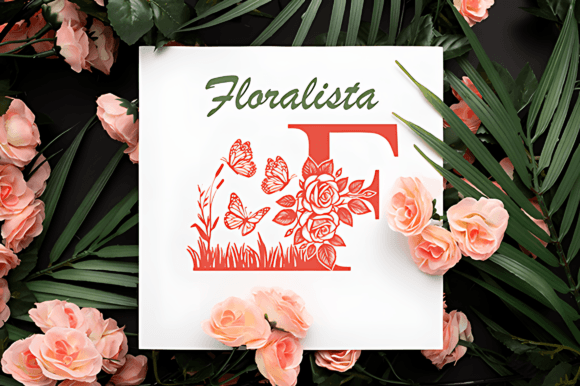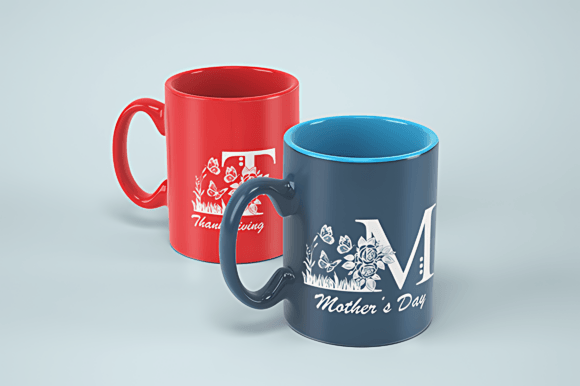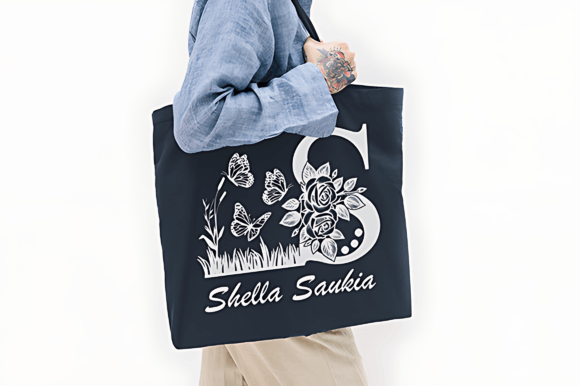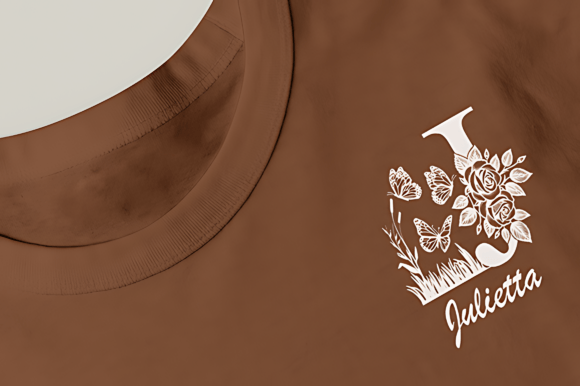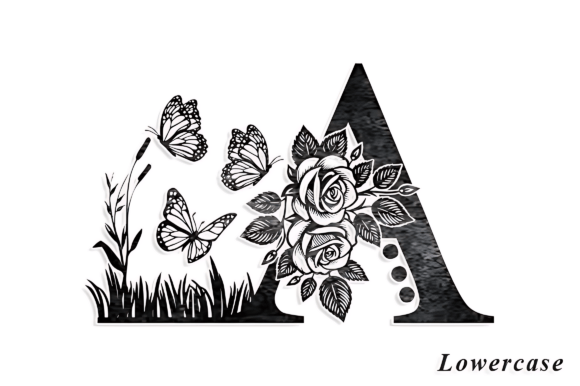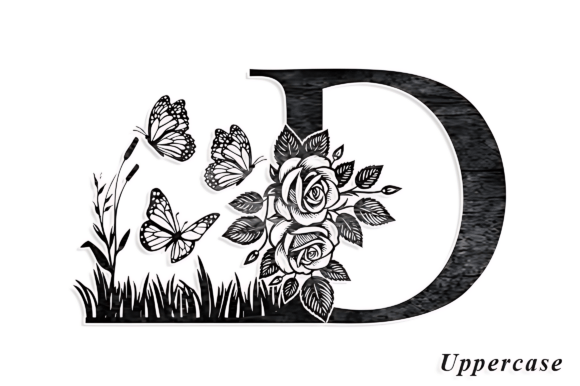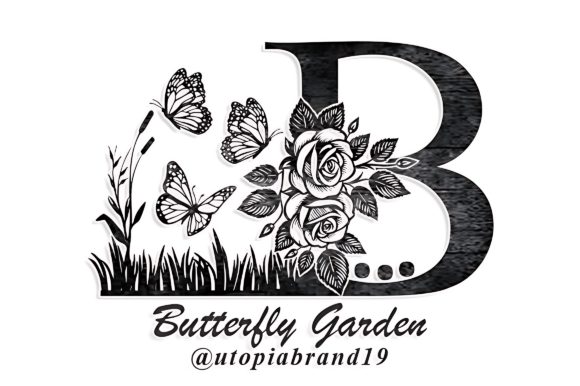
The Magical World of Butterfly Garden Monogram Font
I’ll never forget the moment I stumbled upon the perfect font for a client’s wedding invitation project. I had been searching for what felt like hours, trying out font after font, but nothing seemed quite right. That was until I discovered the Butterfly Garden Monogram font. Its intricate details and whimsical charm instantly captivated me, and I knew I had found the one. In this article, I’ll share my love for this beautiful font, its features, and how to make the most of it in your designs.
A Personal Review of Butterfly Garden Monogram
So, what makes Butterfly Garden Monogram so special? Let’s dive into the details!
- ✨ Incredibly detailed ornaments that add a touch of elegance to any design
- ✅ Unique and eye-catching style that’s sure to make your projects stand out
- 💫 Support for OpenType features, glyphs, and stylistic alternates, giving you endless creative possibilities
- 🎨 Versatility – perfect for a wide range of design projects, from wedding invitations to branding and packaging
While Butterfly Garden Monogram is an amazing font, there are a few things to keep in mind:
- ⚠️ Some of the intricate details may not display correctly at smaller font sizes, so be sure to test and adjust accordingly.
- 🤔 The font’s ornate style may not be suitable for very formal or traditional designs.
The Story Behind Butterfly Garden Monogram
While the true origins of Butterfly Garden Monogram are shrouded in mystery, it’s said that the font’s creator was inspired by the delicate beauty of butterfly wings and the elegance of garden flowers. The result is a font that’s both ornate and refined, perfect for designs that require a touch of whimsy and sophistication.
Q: What type of designs is Butterfly Garden Monogram best suited for?
A: Butterfly Garden Monogram is versatile and can be used for a wide range of designs, including wedding invitations, branding, packaging, and more.
Q: Does Butterfly Garden Monogram support OpenType features?
A: Yes, Butterfly Garden Monogram supports OpenType features, glyphs, and stylistic alternates, giving you endless creative possibilities.